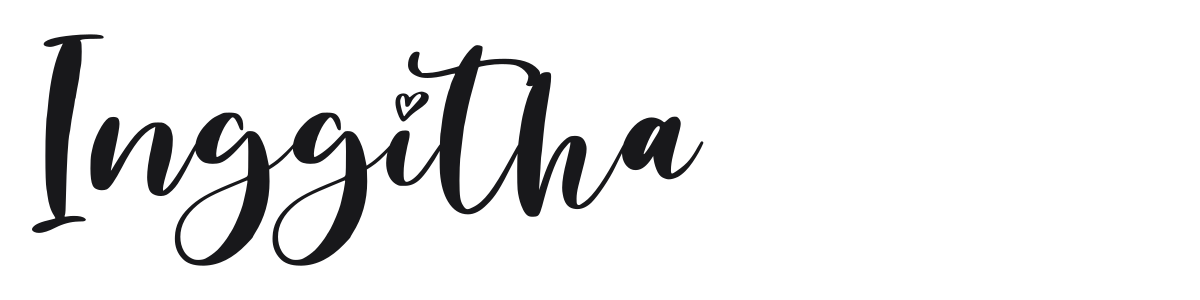
Inggitha
Inggitha is a lively brush-style casual script with generous flourishes and high stroke contrast. The bouncy baseline, looping ascenders, and heart-dotted details give it a hand-lettered warmth that feels personal without being precious. It suits wedding stationery, lifestyle branding, and any project that needs a human touch.